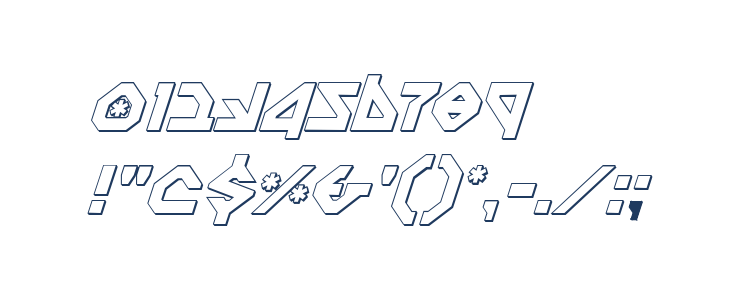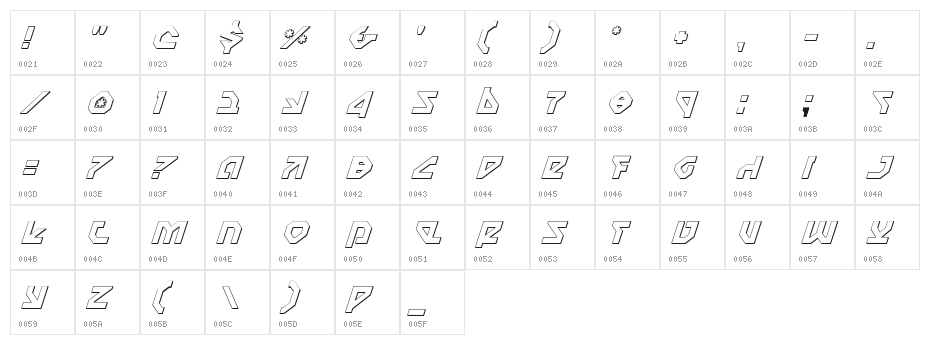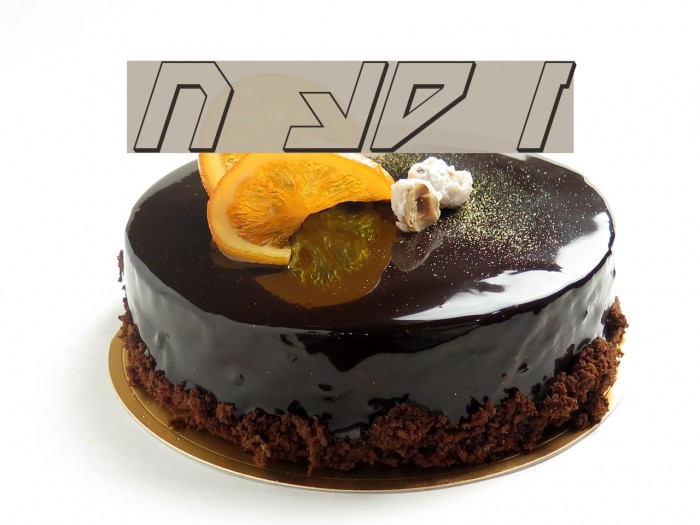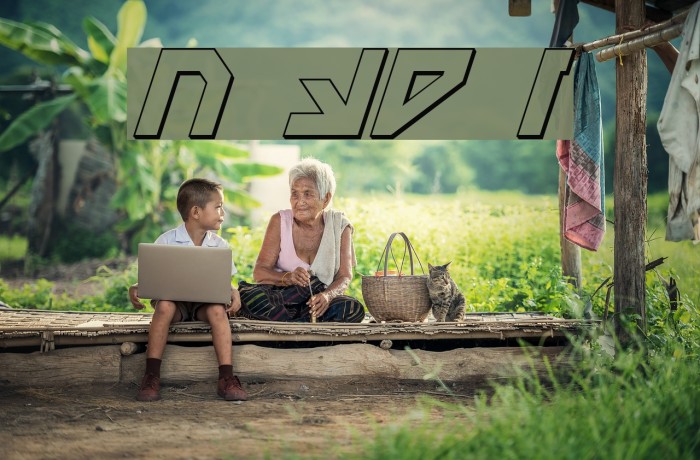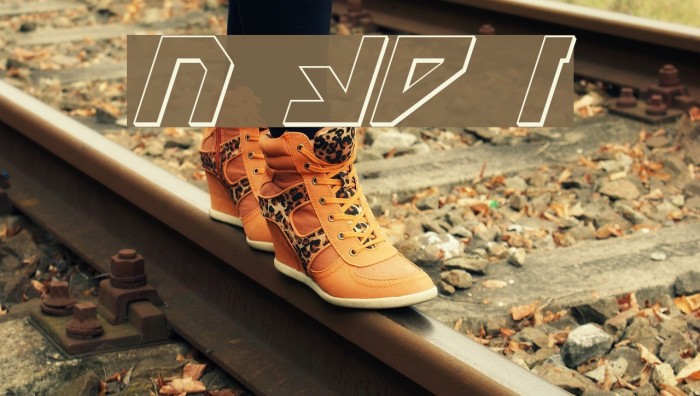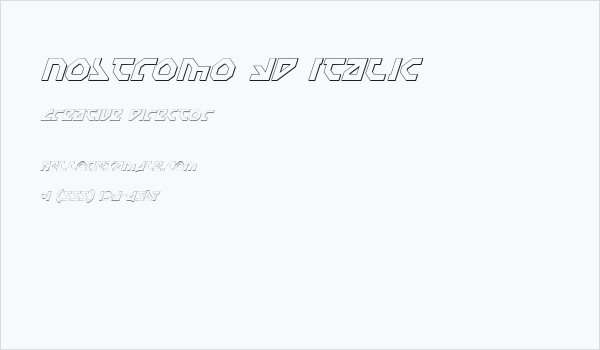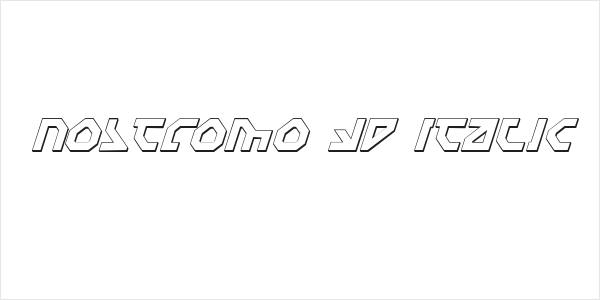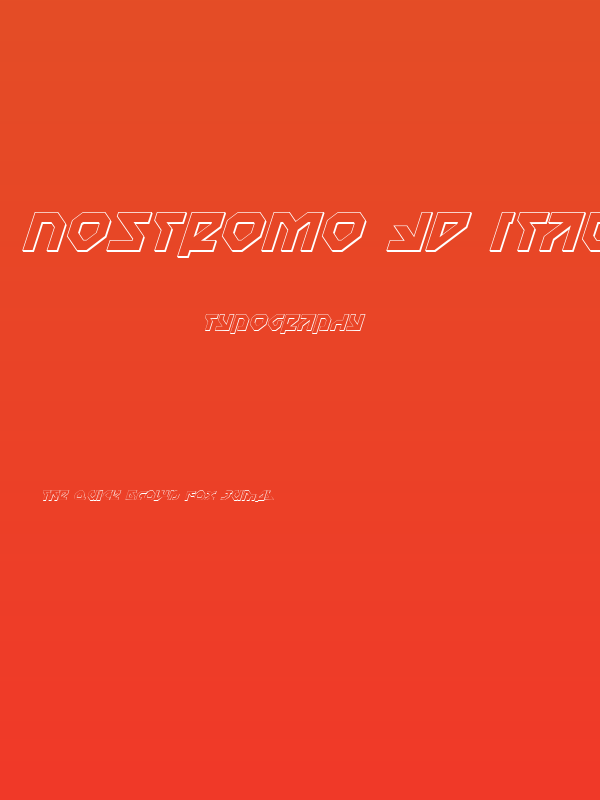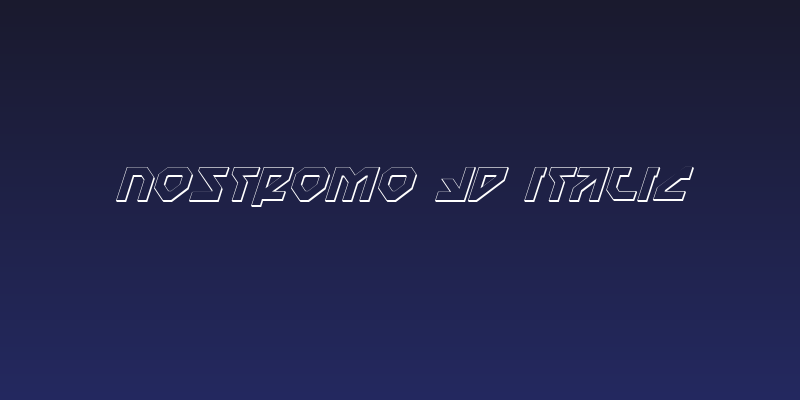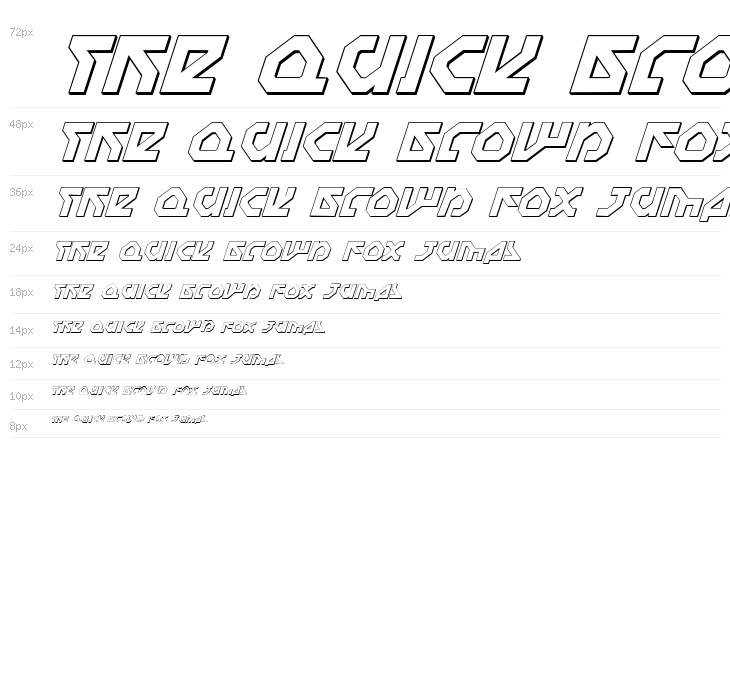
Nostromo 3D Italic Font
Nostromo 3D Italic Description
This font features a bold, futuristic design with a 3D effect that gives each character a sense of depth and dimension. The angular, geometric shapes create a dynamic and modern appearance, making it ideal for projects that require a cutting-edge look. The italic style adds a sense of motion and speed, enhancing its suitability for technology-related themes. The characters are outlined, providing a unique visual effect that stands out against various backgrounds. The font includes a full set of uppercase and lowercase letters, numbers, and a range of special characters, ensuring versatility in design applications.